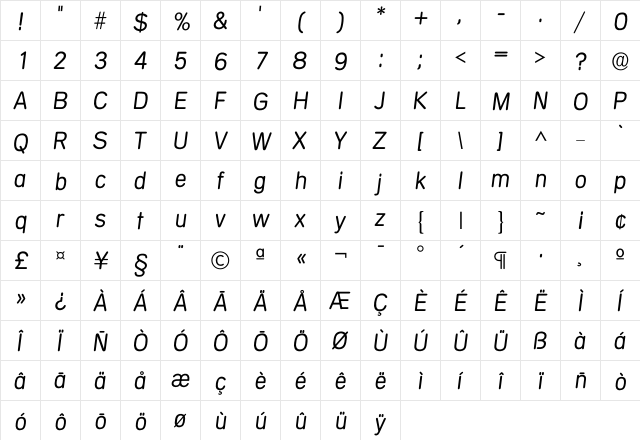
Imercedes Light
Design Context for Imercedes Typeface
Imercedes is a composed and adaptable typeface that performs quietly and consistently across a wide range of design contexts. The delicate stroke weight brings airiness and refinement to layouts.